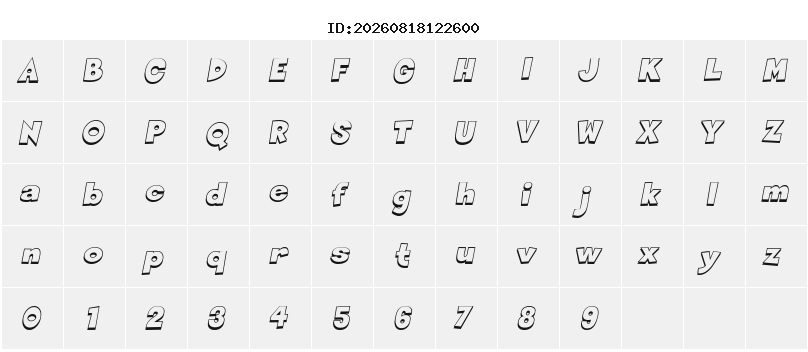
• Font Name: Sneakerhead BTN Shadow
• Font Style: Oblique
• Full Font Name: Sneakerhead BTN Shadow Oblique
About Sneakerhead BTN Shadow.ttf
Sneakerhead BTN Shadow.ttf is a modern, elegant sans-serif font designed for ultimate readability and visual harmony. Perfect for branding, headlines, web design, and print materials.